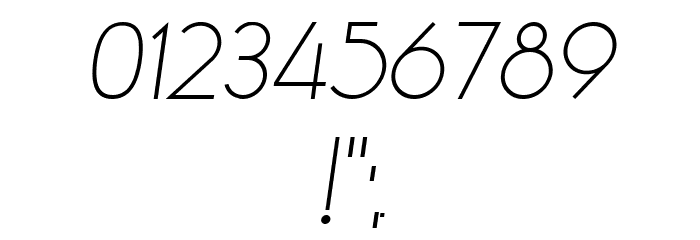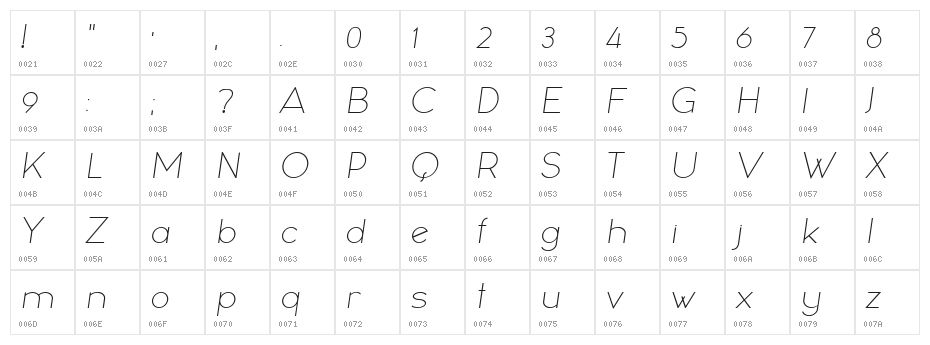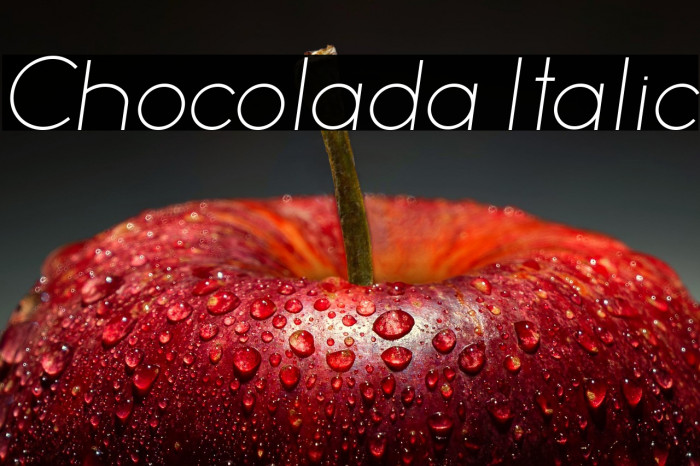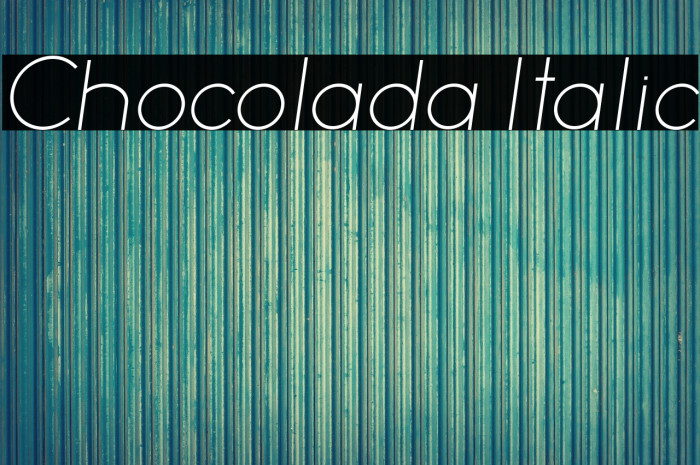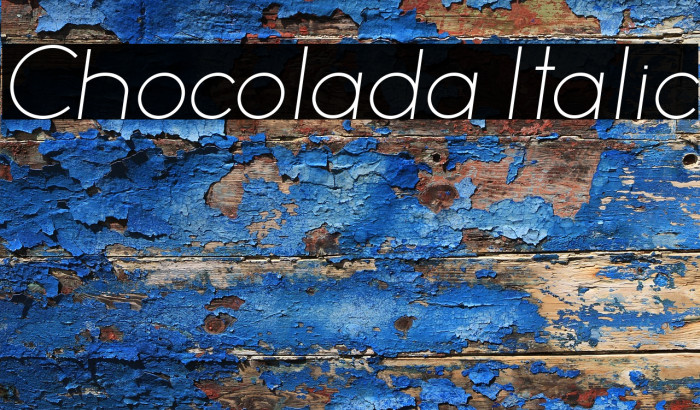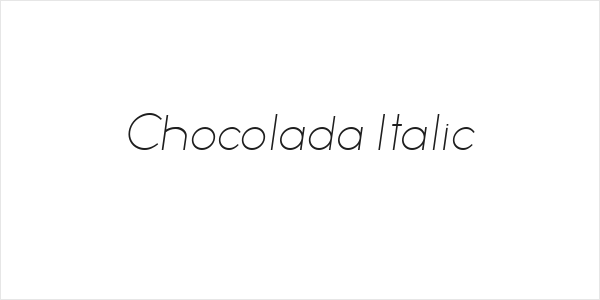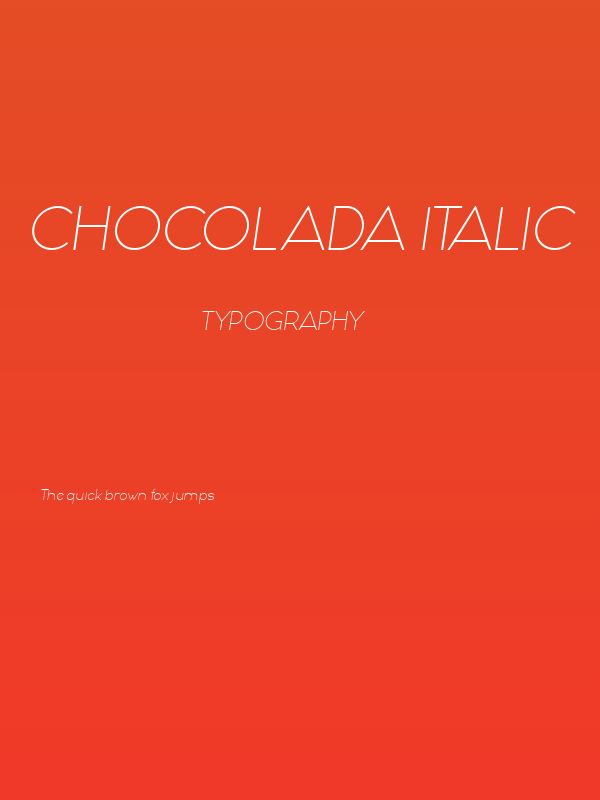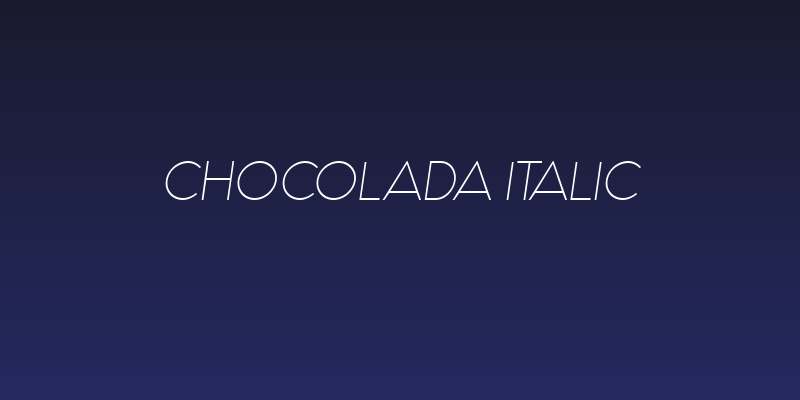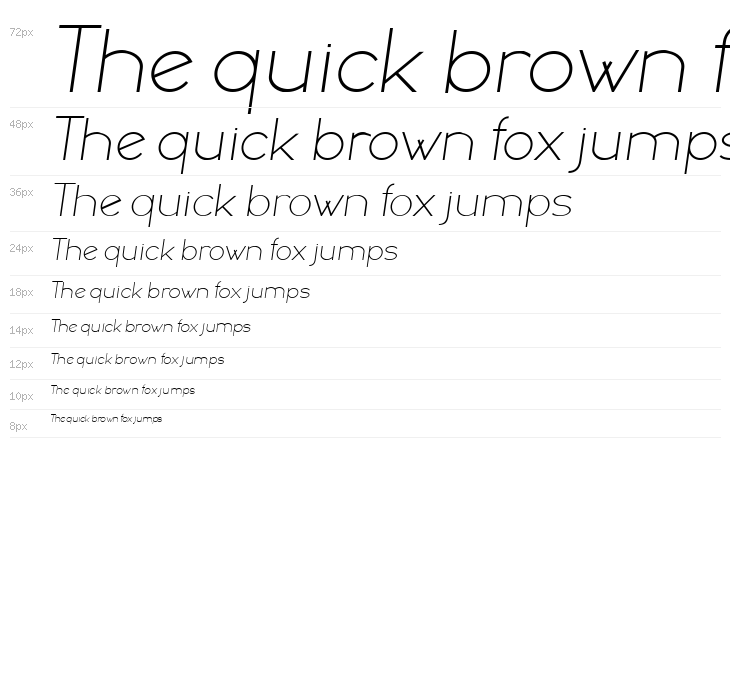
Chocolada Italic Font
Chocolada Italic Description
This font features a sleek and modern design with a subtle italic slant, giving it a dynamic and elegant appearance. The characters are crafted with clean lines and a consistent stroke width, contributing to its minimalist aesthetic. The uppercase letters are tall and slightly narrow, while the lowercase letters maintain a balanced proportion, enhancing readability. The numerals are distinct and align well with the overall style, making them suitable for various applications. The special characters are designed to complement the alphabet, ensuring a cohesive look across all text elements.
| Proposed Projects | Ideal for modern branding, editorial design, digital interfaces, and elegant invitations. |